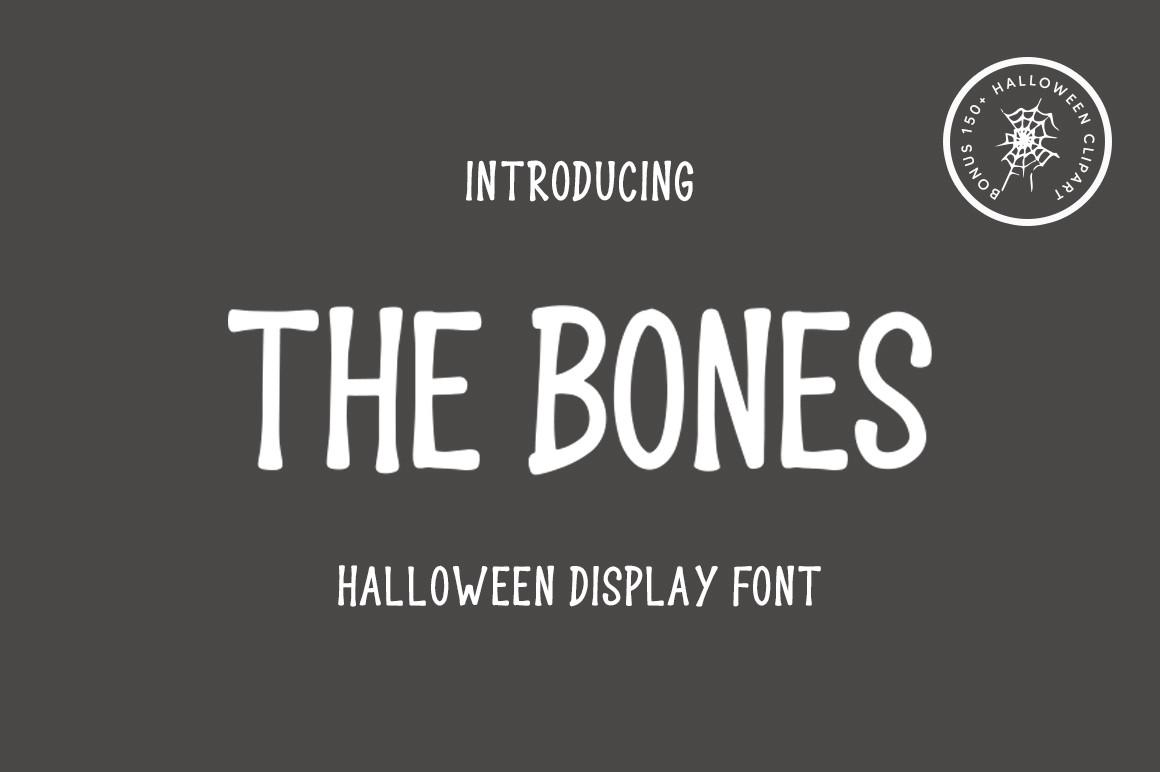
The Bones is a spooky and simple display font. Masterfully designed to become a true favorite, this font has the potential to bring each of your October ideas to the highest level!